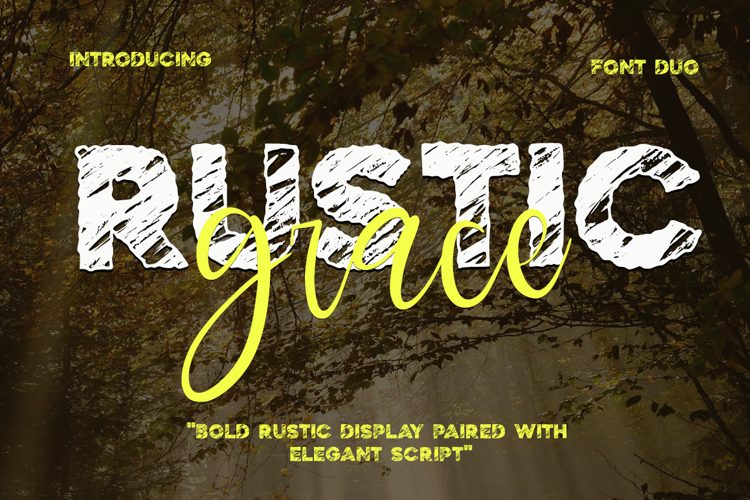
Rustic Grace – Font Duo
Rustic Grace is a font duo combining a bold rustic display with an elegant script. The strong textured display pairs beautifully with the smooth handwritten script, creating a perfect balance of contrast. It works well for branding, packaging, posters, quotes, social media, and editorial design.
This font duo brings a natural, handmade yet modern feel, making it easy to adapt for a wide range of creative projects. With bold character and graceful elegance, Rustic Grace is an ideal choice for designs that need both strength and sophistication.